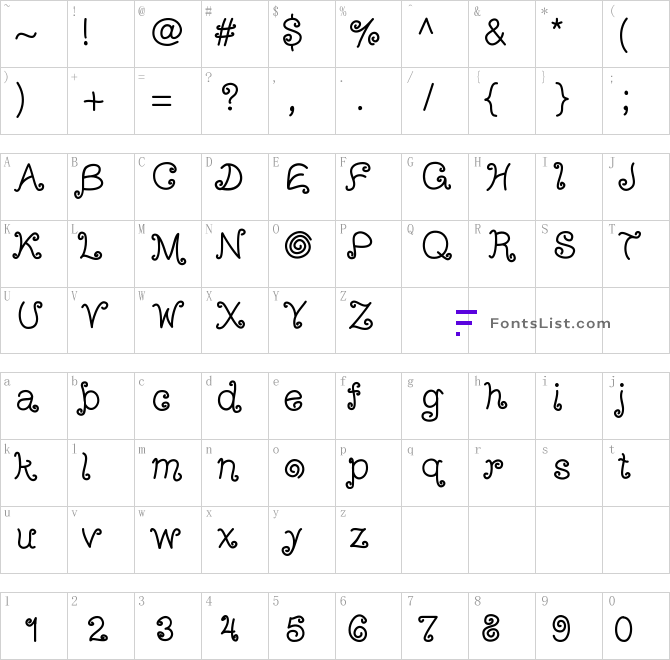
- Font Name:ArizonaTumbleweed
ArizonaTumbleweed.ttf is a very beautiful artistic font, ArizonaTumbleweed.ttf is widely used in the design and printing of various books and pictures,ArizonaTumbleweed.ttf has a strong visual impact,ArizonaTumbleweed.ttf is a commonly used font in newspapers, magazines and books, and is used in posters, e-commerce Poster design, store design, logo design, font design and other fields.ArizonaTumbleweed.